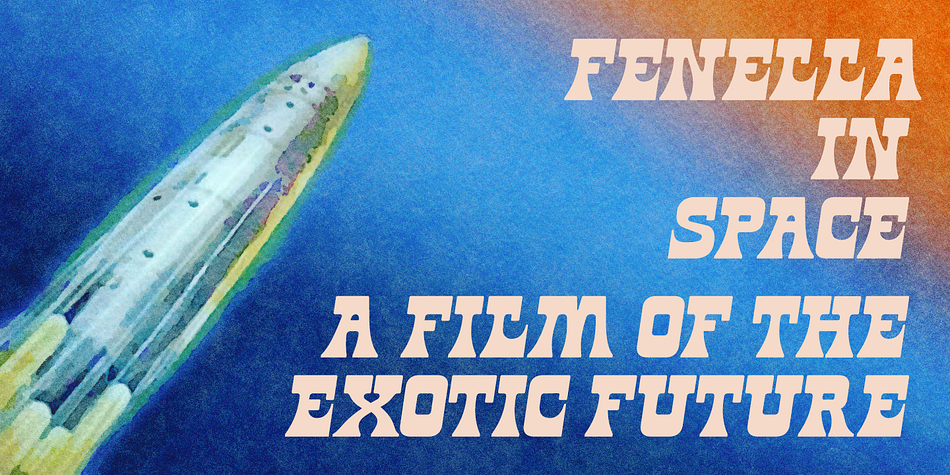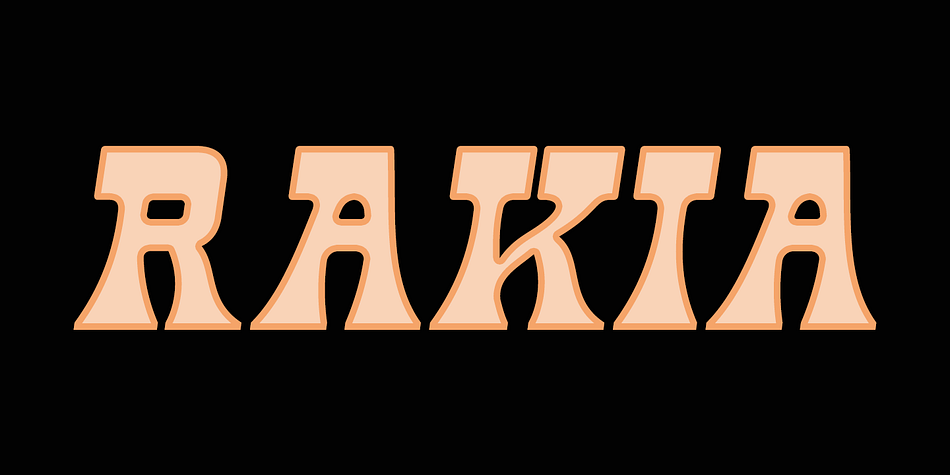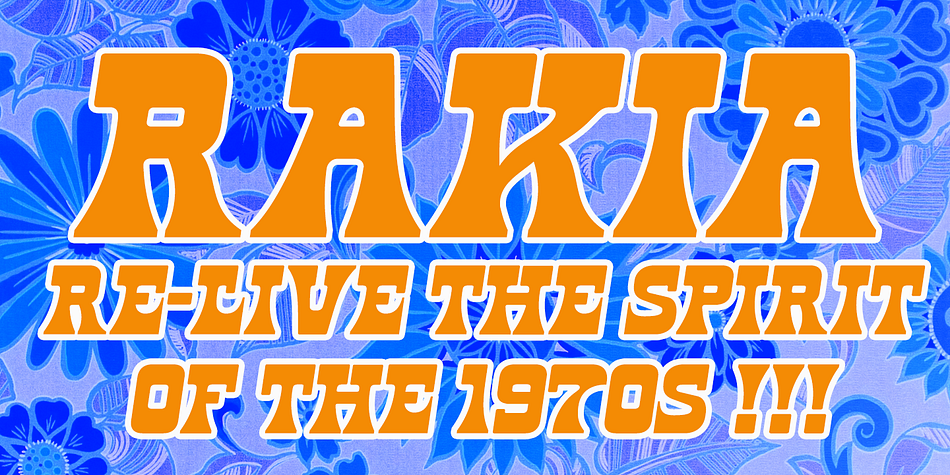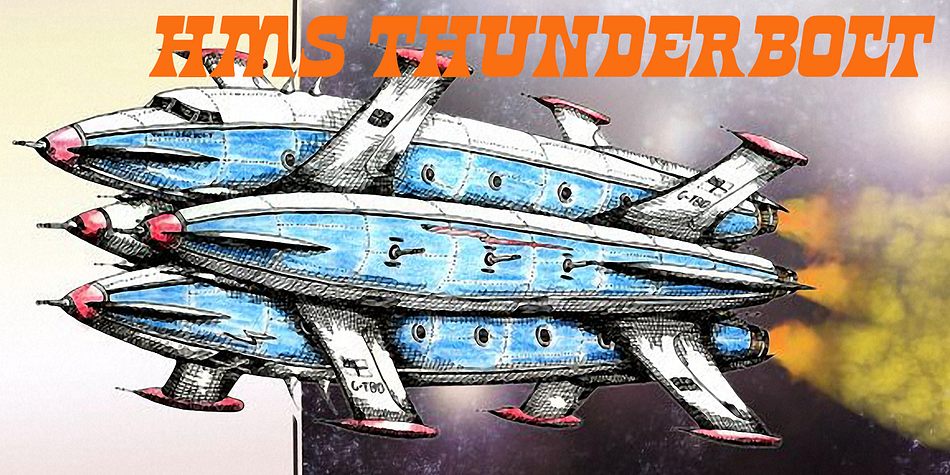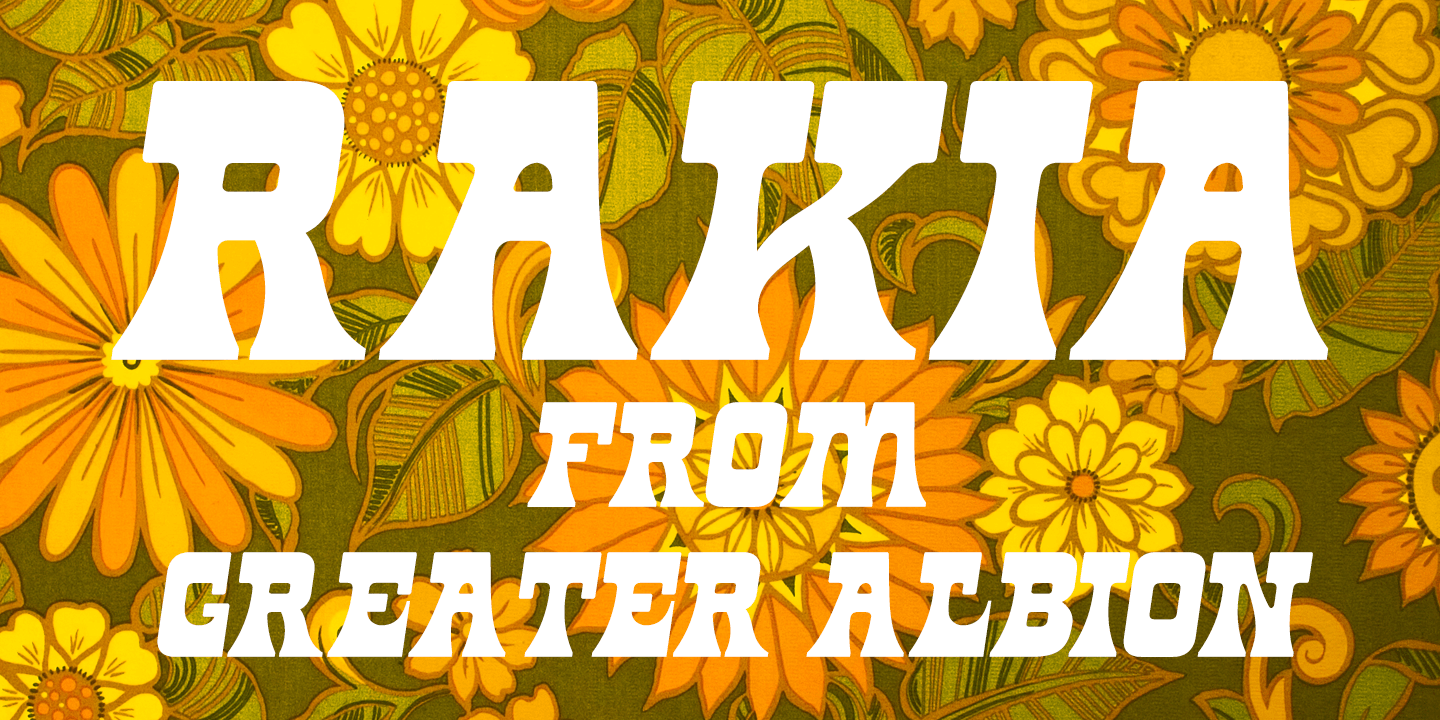
RAKIA
Designed by Paul Lloyd, Rakia is a retro font published by Greater Albion Typefounders.
Why not take a giant leap back to the 1970s?
Rakia is a science-fiction inspired font, with classic overtones of the 70s. Alternatively, it is a 1970s font with scoff overtones. Take your pick! It’s an all capitals face, with a strong suggestion of speed and motion about it. A wonderful display font and fun to use!